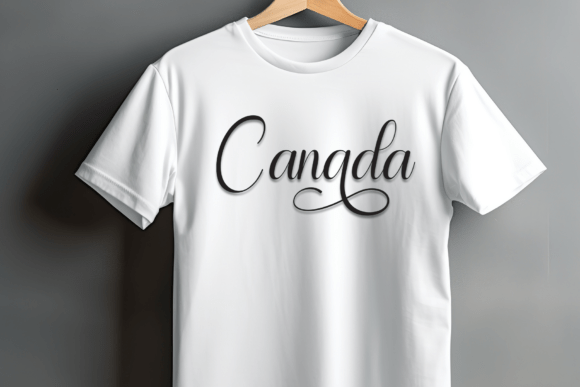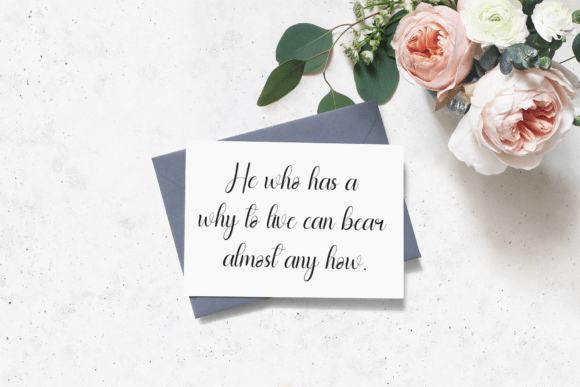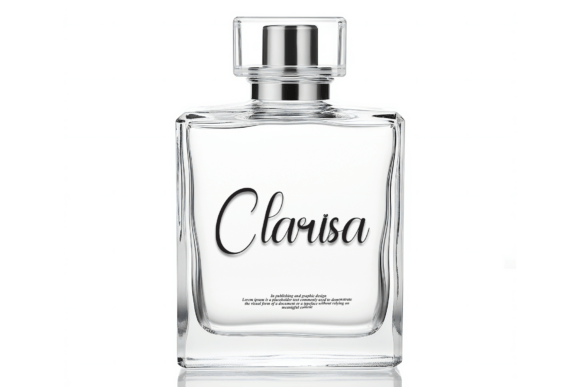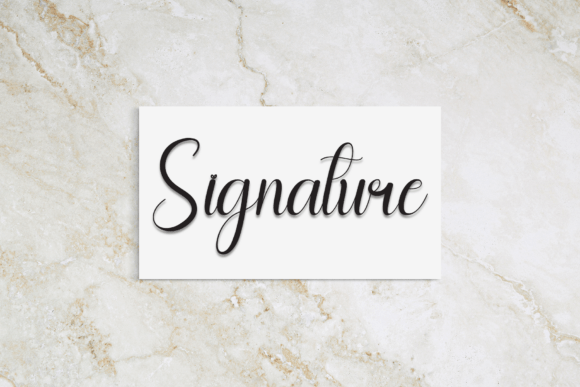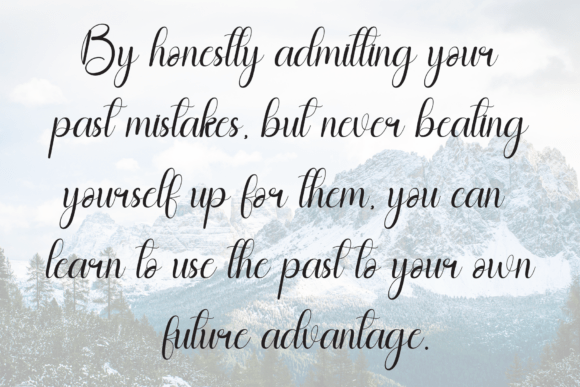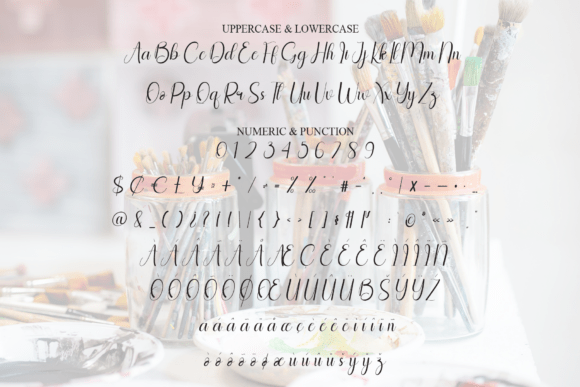
The Perfect Brushstroke: Introducing Artistic Font
As a designer, there’s nothing quite like the thrill of creating something from scratch. The blank page stares back at you, a canvas waiting to be transformed into something beautiful. You pick up your pen, and the strokes begin to flow – a dance of lines and curves that bring your vision to life. This is the magic of Artistic Font, a stylish handwritten script font that captures the essence of creative expression.
With its smooth, flowing strokes and elegant balance of charm and modernity, Artistic Font is the perfect addition to any design project. Whether you’re crafting a bespoke brand identity or designing an exclusive invitation, this typeface adds a personal, artistic touch that sets your work apart. Its versatility and sophistication make it a valuable asset for designers, elevating even the most mundane projects into something truly special.
Key Features of Artistic Font
- Font Family: Artistic Font is a unique, hand-drawn font family with a range of styles and weights.
- Unique Characteristics: Features intricate details, organic shapes, and subtle texture, making it perfect for artistic and creative projects.
- Language Support: Includes support for over 200 languages, including Latin, Cyrillic, Greek, and many more, making it a versatile choice for global audiences.
- Customization Options: Allows for advanced font customization through OpenType features, including ligatures, swashes, and stylistic sets, giving designers and artists the freedom to create unique and personalized designs.
Designer Review: Artistic Font
Overall, I think the Artistic Font is a lovely addition to any design project. Here are some things that really shine:
- ✨ The font’s unique, hand-painted feel adds a touch of whimsy and personality to any text. It’s perfect for creative projects or branding that wants to stand out.
- ✨ The font is highly customizable, with a range of weights, styles, and sizes to choose from. This makes it easy to tailor the font to your specific design needs.
- ✨ The font is also highly legible, making it a great choice for body text or headings where readability is key.
Of course, no font is perfect, and there are some limitations to consider:
- ⚠️ The font may not be the best choice for formal or professional projects where a more traditional font is required.
- ⚠️ Some users may find the font’s hand-painted feel to be too busy or overwhelming, especially at smaller sizes.
- ⚠️ The font’s customization options can be overwhelming, especially for designers who are new to working with fonts.
Overall, I think the Artistic Font is a great choice for designers who want to add a touch of creativity and personality to their projects. While it may not be suitable for every project, it’s definitely worth considering for the right client or design challenge.
Tips for Getting the Most Out of Artistic Font
For optimal results, use Artistic Font in combination with bold, vibrant colors and creative layouts.
Experiment with different font sizes and styles to add visual interest to your design.
Artistic Font is ideal for:
Designing posters and flyers for art exhibitions or music events.
Creating invitations for weddings or birthday parties.
Developing branding materials for creative businesses or artists.